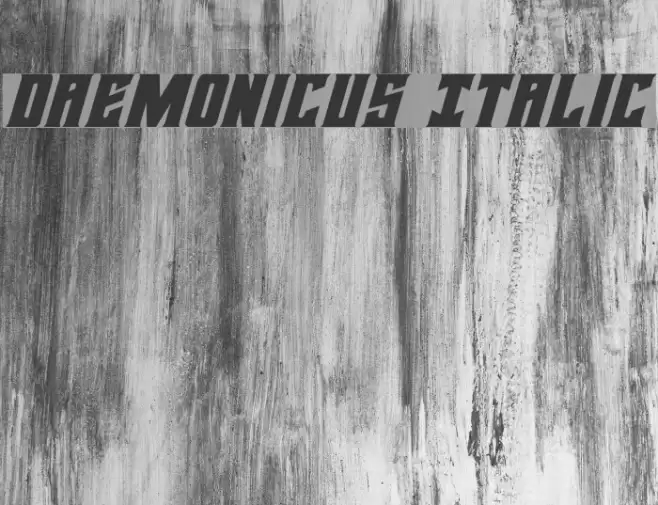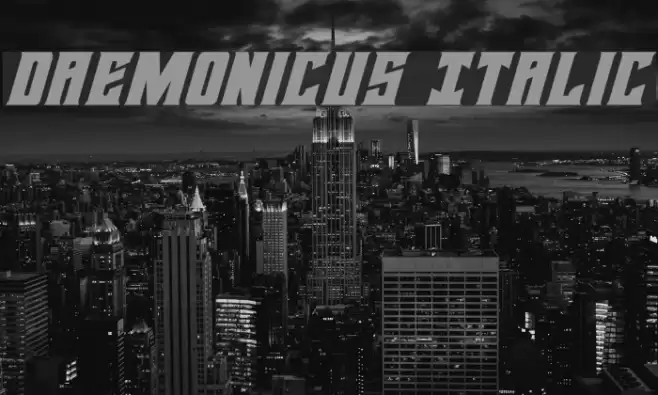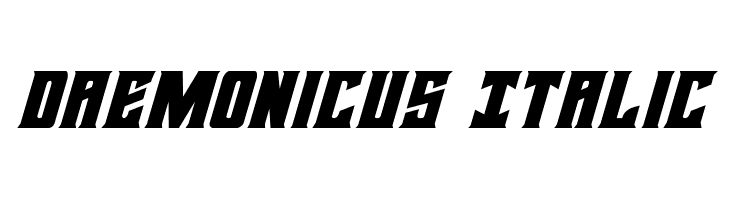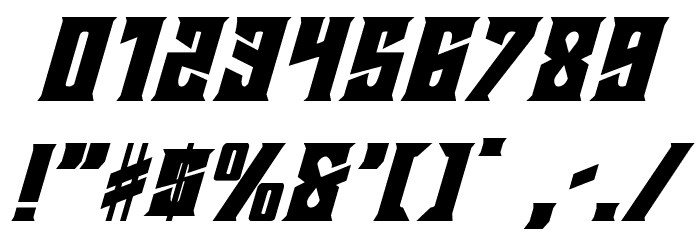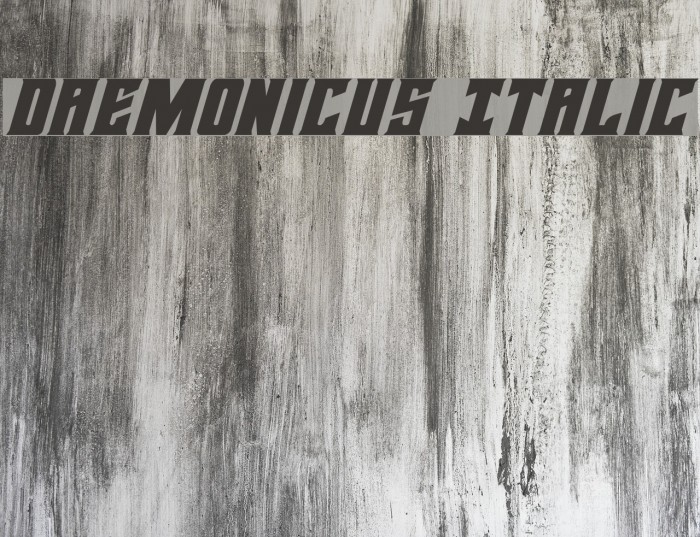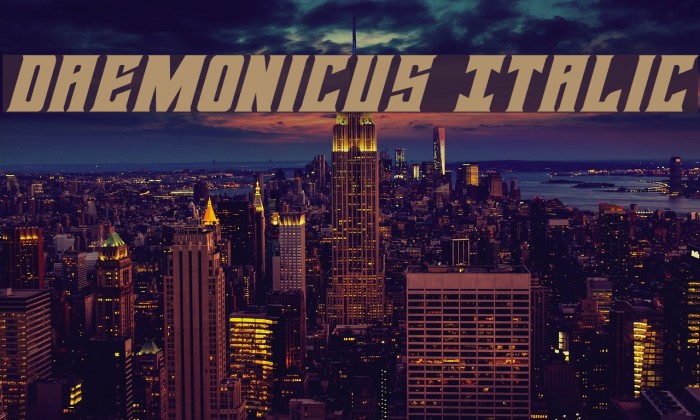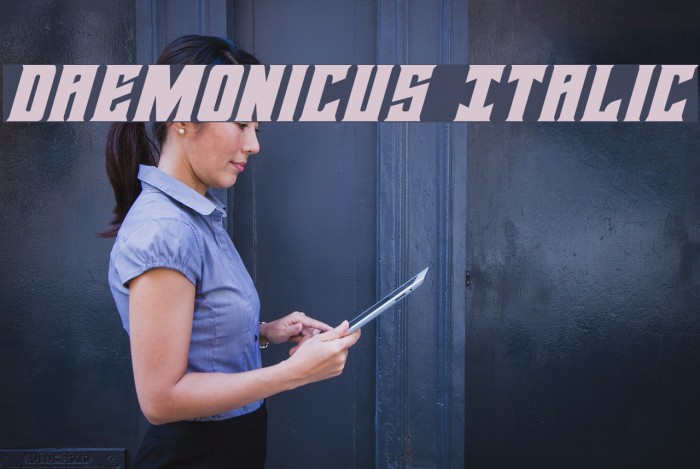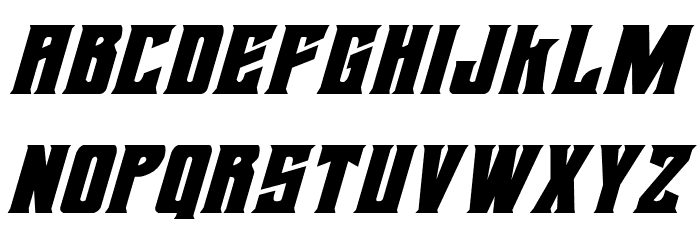
Daemonicus Italic Font
Daemonicus Italic Description
This font features a bold and dynamic style with sharp, angular edges and a distinct italic slant. The characters are heavily stylized, giving them a unique and aggressive appearance. The uppercase and lowercase letters maintain a consistent design, with exaggerated serifs and a strong forward lean. The numbers and special characters follow the same bold and angular aesthetic, ensuring uniformity across all glyphs. This font is designed to make a strong visual impact, suitable for projects that require a striking and memorable typeface.
A bold, angular, and italicized font with a dynamic and aggressive style from Uncategorized fonts.
- Proposed Projects: Ideal for use in video game titles, movie posters, branding for extreme sports, or any project needing a bold and edgy look.
- Character Spacing: Tight